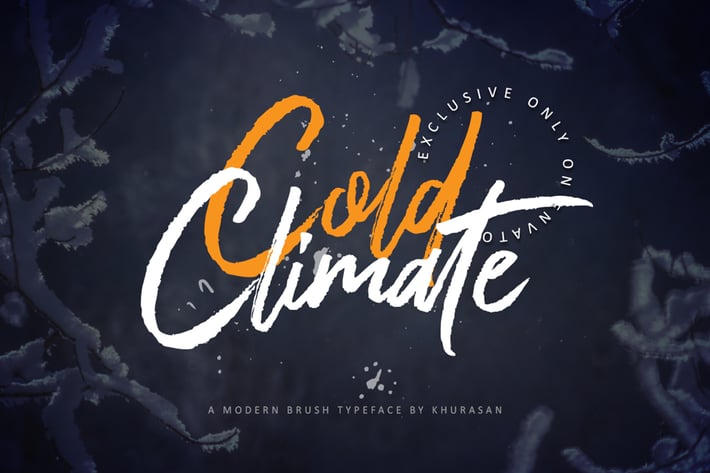
Cold Climate Font
The Cold Climate is a fresh handwritten script font, elegant and modern feel character set. The Cold Climate font includes a full set capital and lowercase letters, as well as multi-lingual support, swashes, numerals, & punctuation. The Cold Climate font exclusive only in envato web.
Numeral & punctuation
Ligature Feature
Multilingual support for; ä ö ü Ä Ö Ü ß ¿ ¡ & more